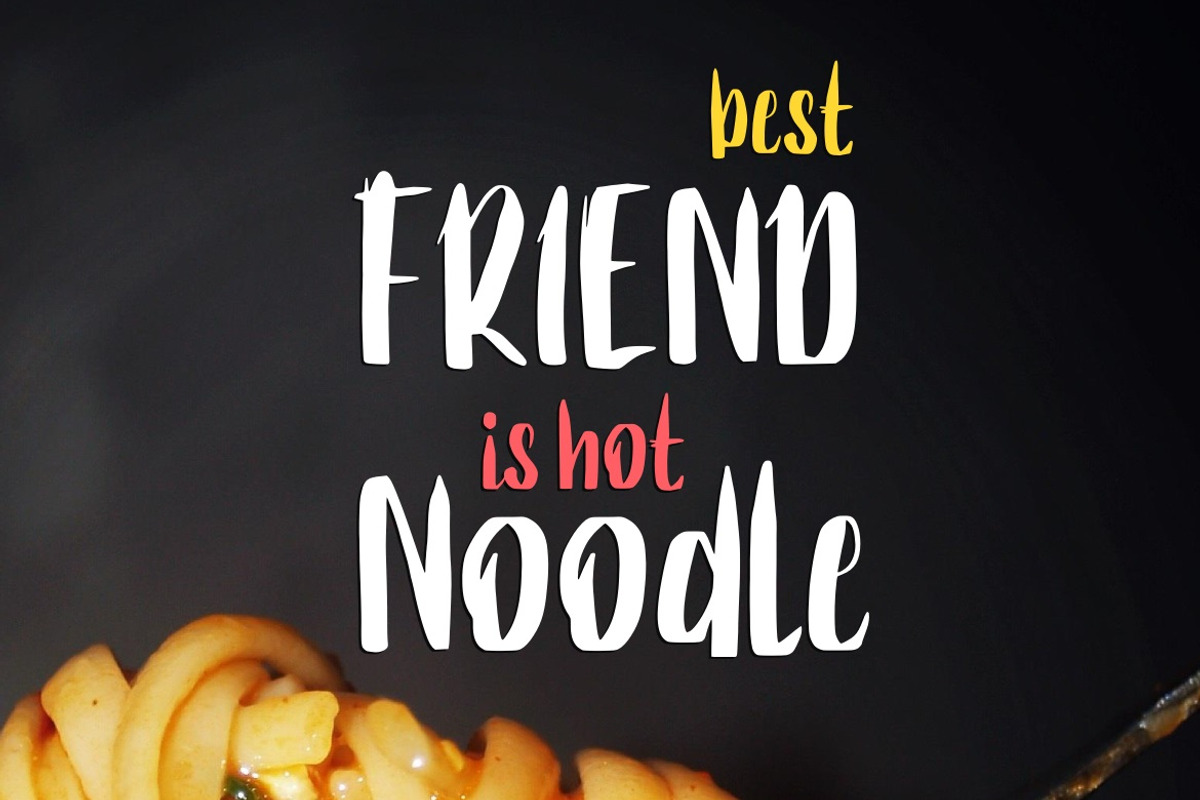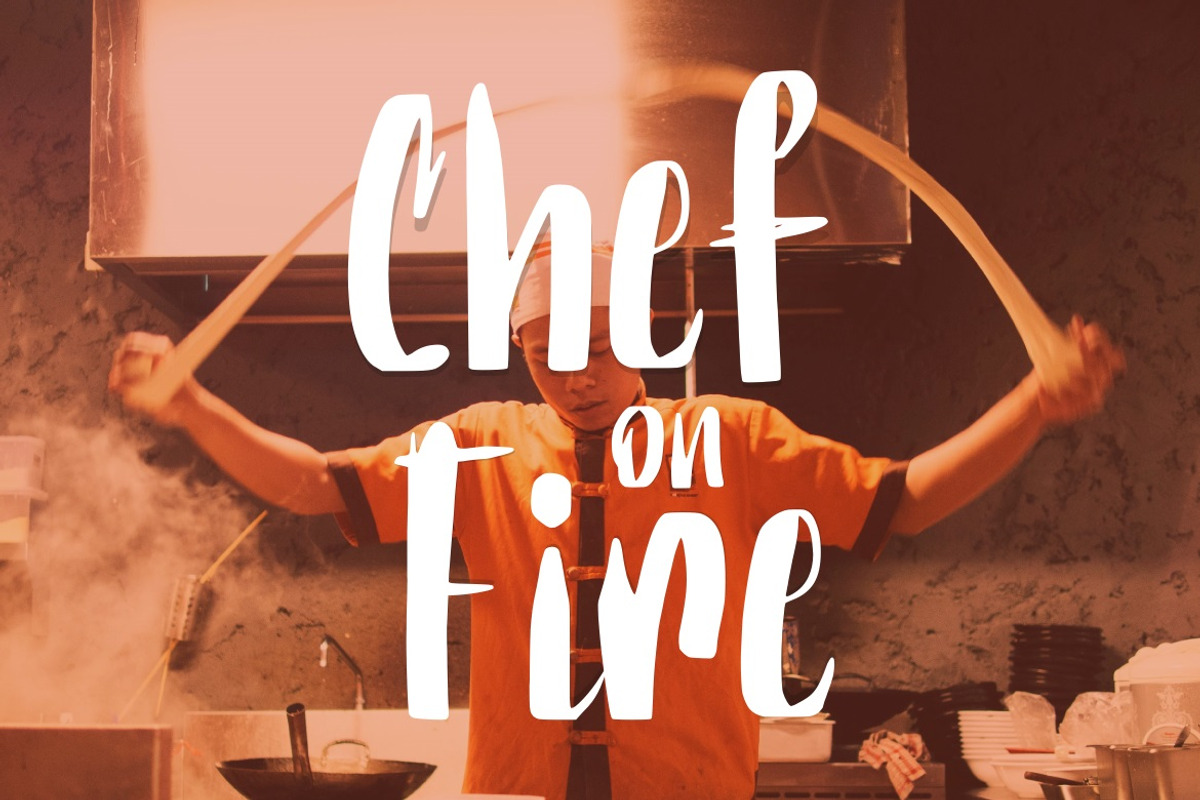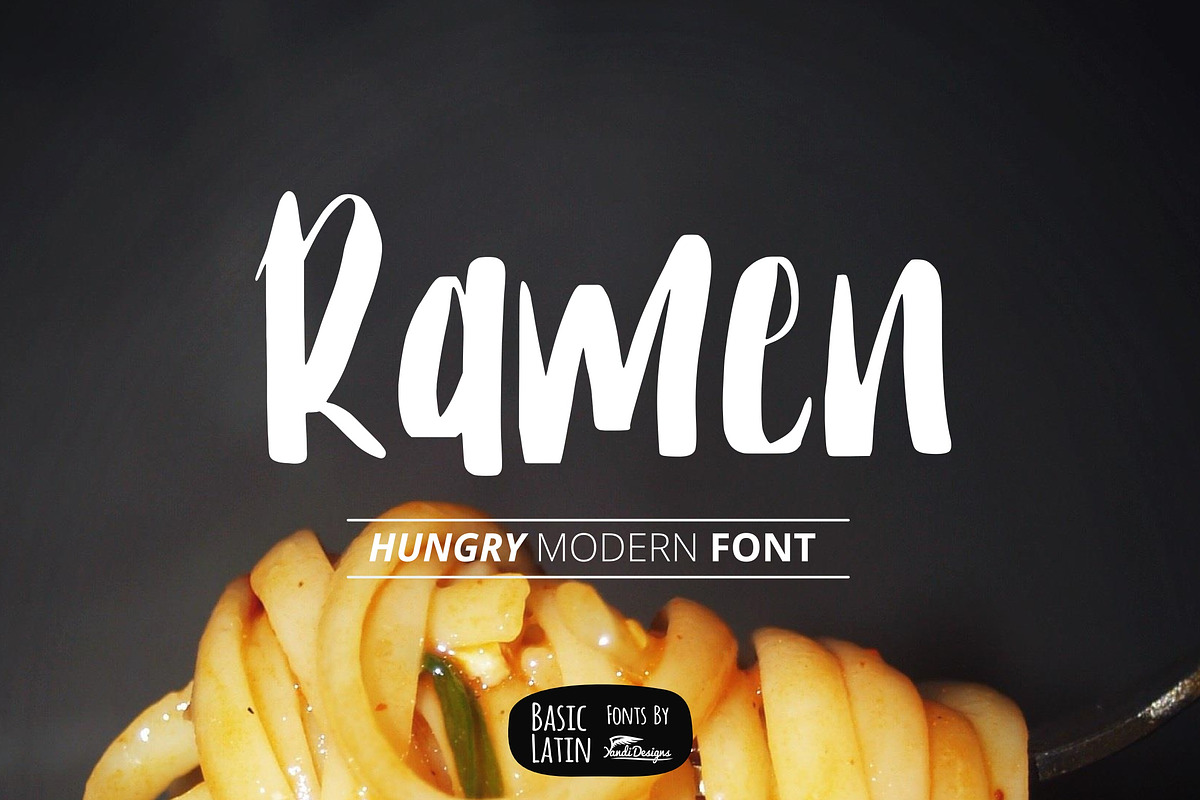
Ramen The Hungry Font
Simple playful modern font , suitable for many project , quotes, logo , doodle, heading , title etc.
Why Ramen The Hungry Font is worth a look
Ramen The Hungry Font by YandiDesigns fits naturally into Branding, posters, packaging, typography.